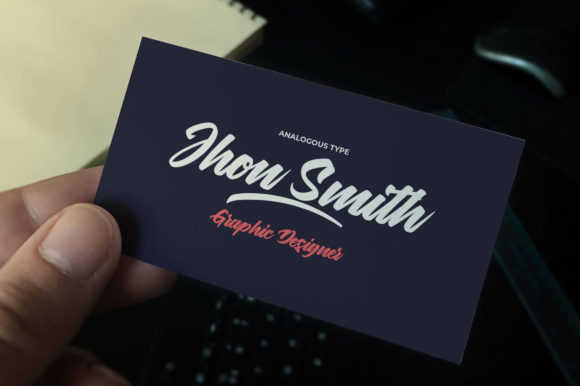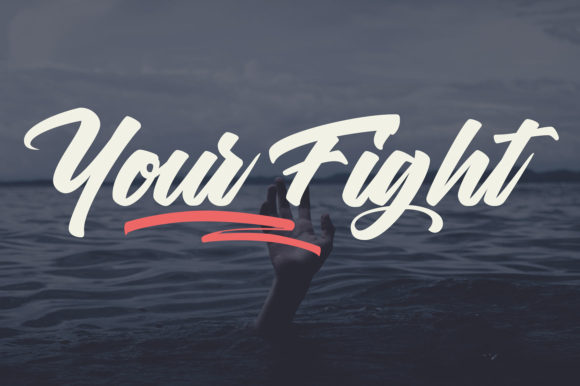
Kangchen Font
db-ku.com - Script & Handwritten -- Kangchen is a retro script that feels dynamic and authentic. Use it to deliver any message with confidence and style.